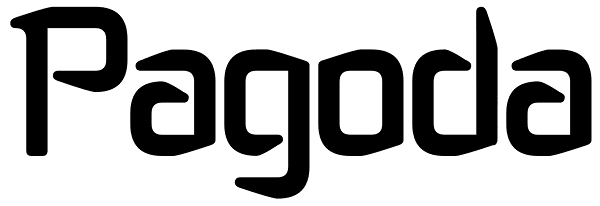
Pagoda
This display font has an oriental character reminiscent of brush stroke calligraphy and all things Japanese. My original working title for this font was ‘Spanner’, because the lower case ‘c’, with which the design began, looked rather like the head...